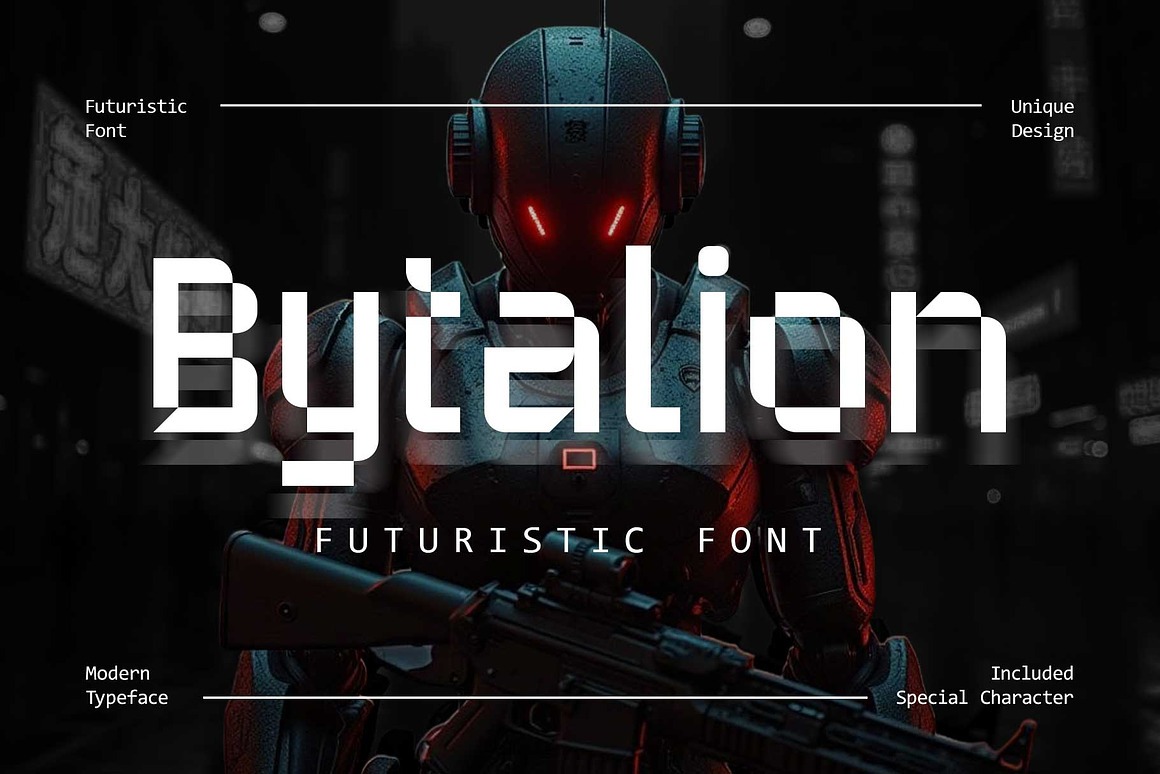
Bytalion Font
About Bytalion
Bytalion is a futuristic font with a unique geometrical design. Combining rectangular and curvy shapes, this font takes you on a sci-fi journey straight out of a movie. Bytalion embodies modernism, technology, and minimalist style.